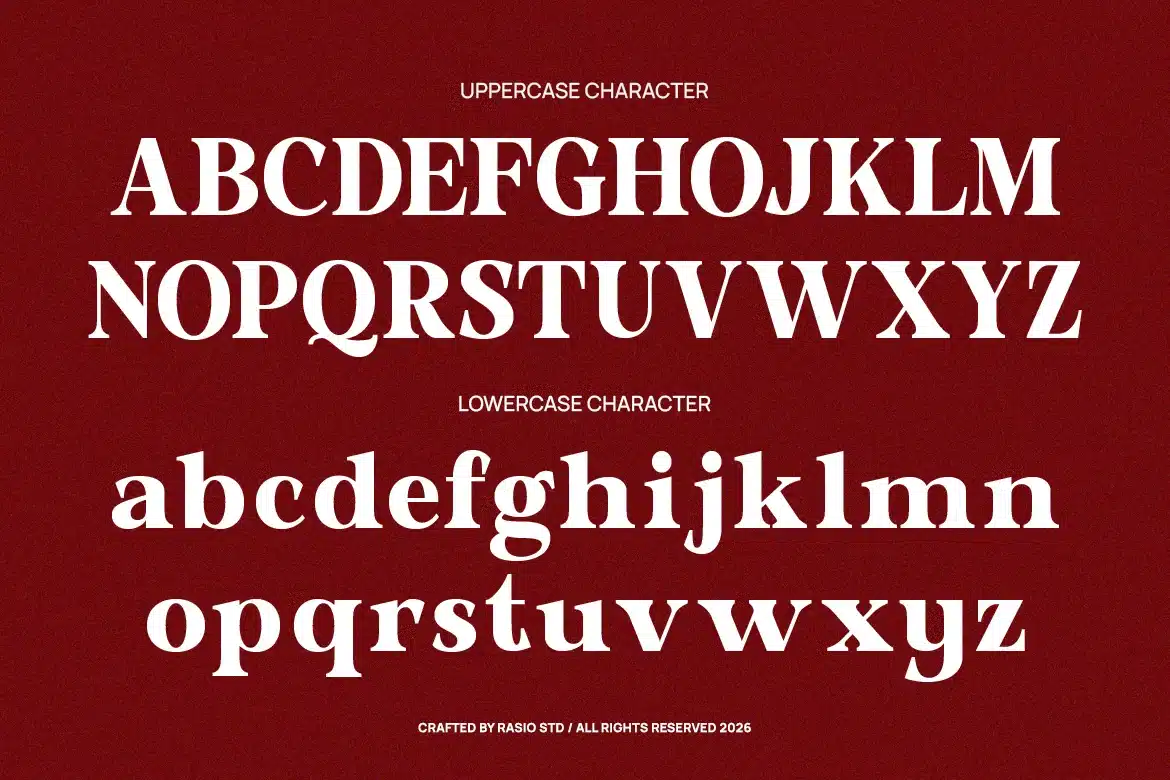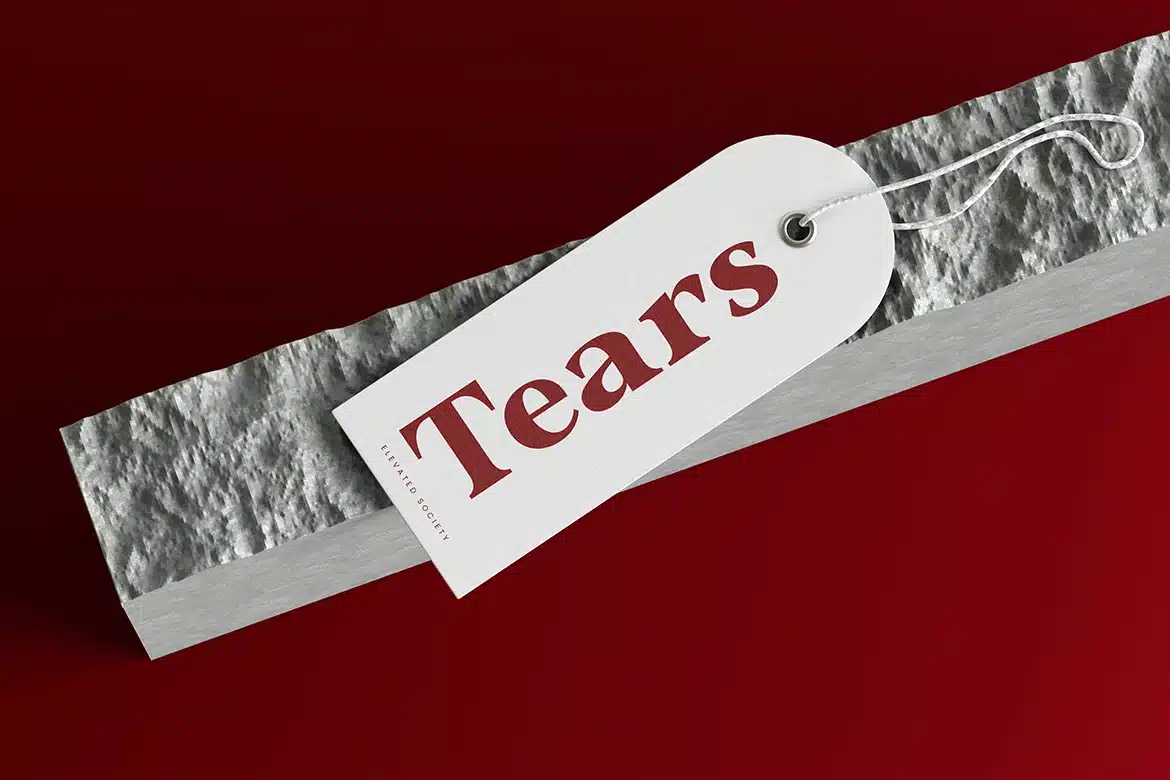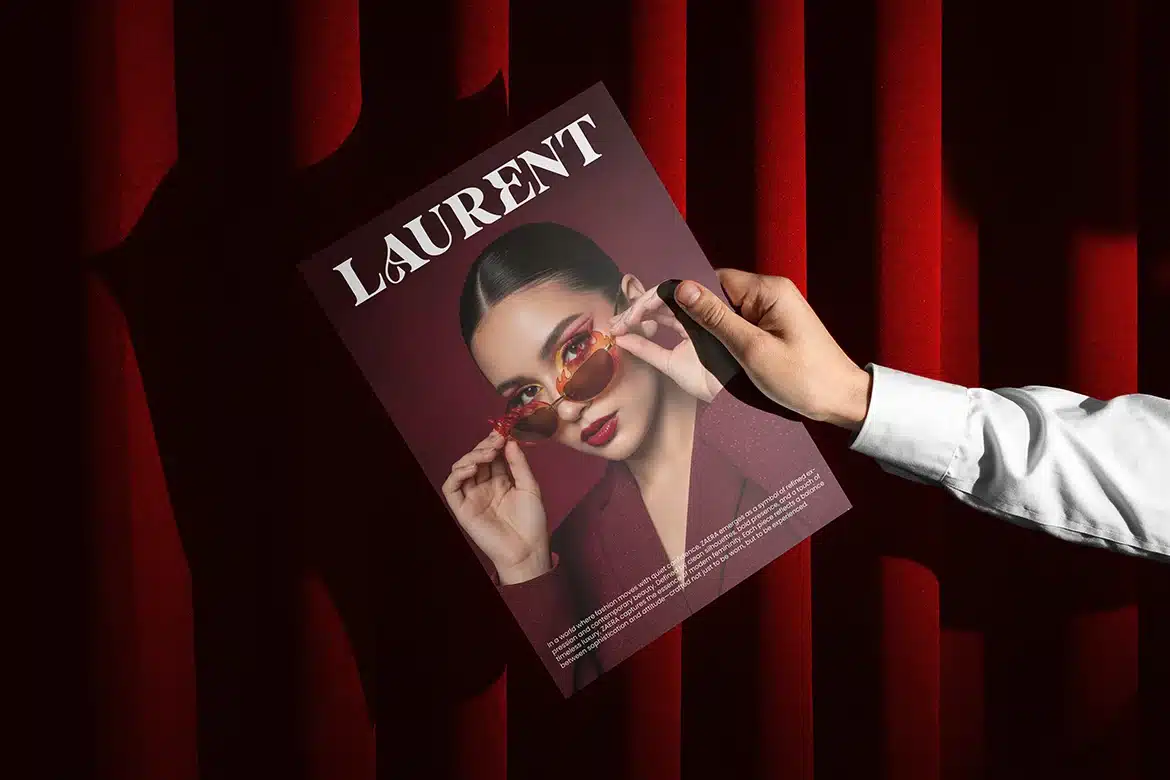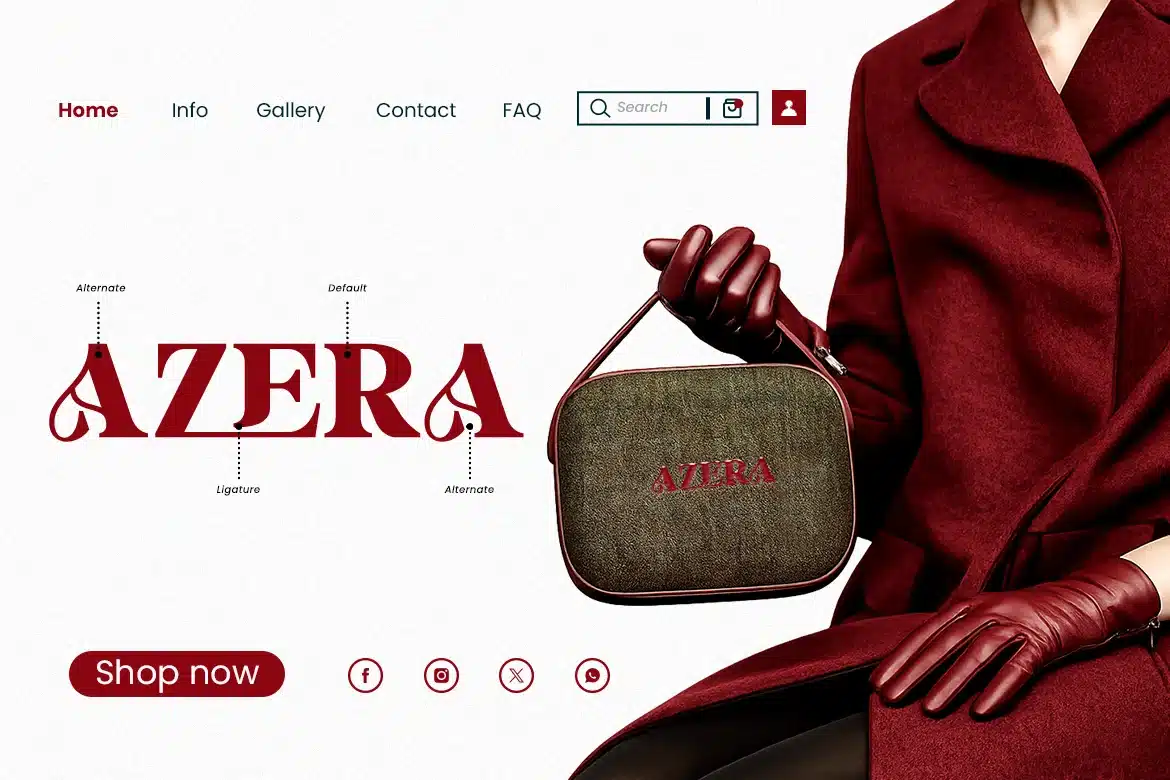
Lecaria Editorial Modern Serif Font
Lecaria is a modern editorial serif font designed with a refined balance of elegance and contemporary structure. It features high-contrast strokes, sharp serif details, and stylish alternates that elevate typographic compositions with a premium feel. The font includes uppercase, lowercase, numerals, punctuation. Carefully crafted spacing and proportions make Lecaria highly readable while maintaining a strong visual identity for display and editorial use.
Relevance and Use Cases is perfect for modern editorial and luxury-focused design projects that require a sophisticated and professional tone. It works exceptionally well for fashion branding, magazine layouts, product packaging, and high-end marketing materials. The refined serif details and strong contrast make it ideal for headlines, logos, and visual storytelling, delivering a polished and contemporary aesthetic across both print and digital platforms.